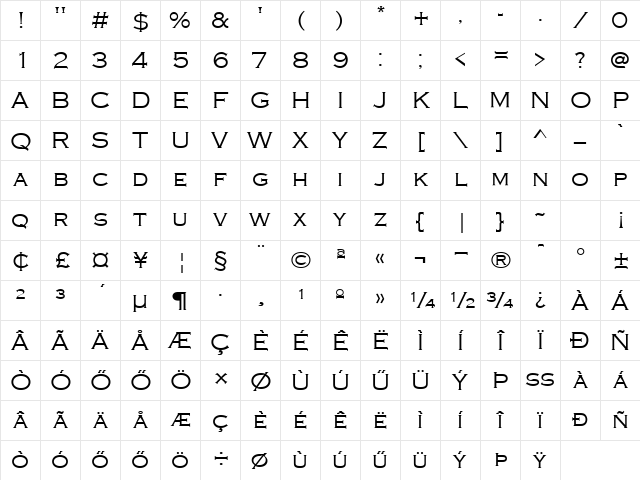
HCopperplate Normal Free Font
HCopperplate Normal
HCopperplate Family
Design Context for HCopperplate
HCopperplate is a composed and adaptable typeface that performs quietly and consistently across a wide range of design contexts.